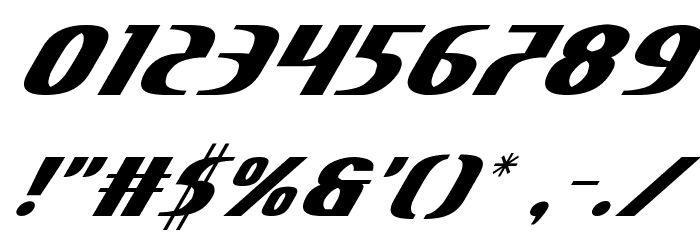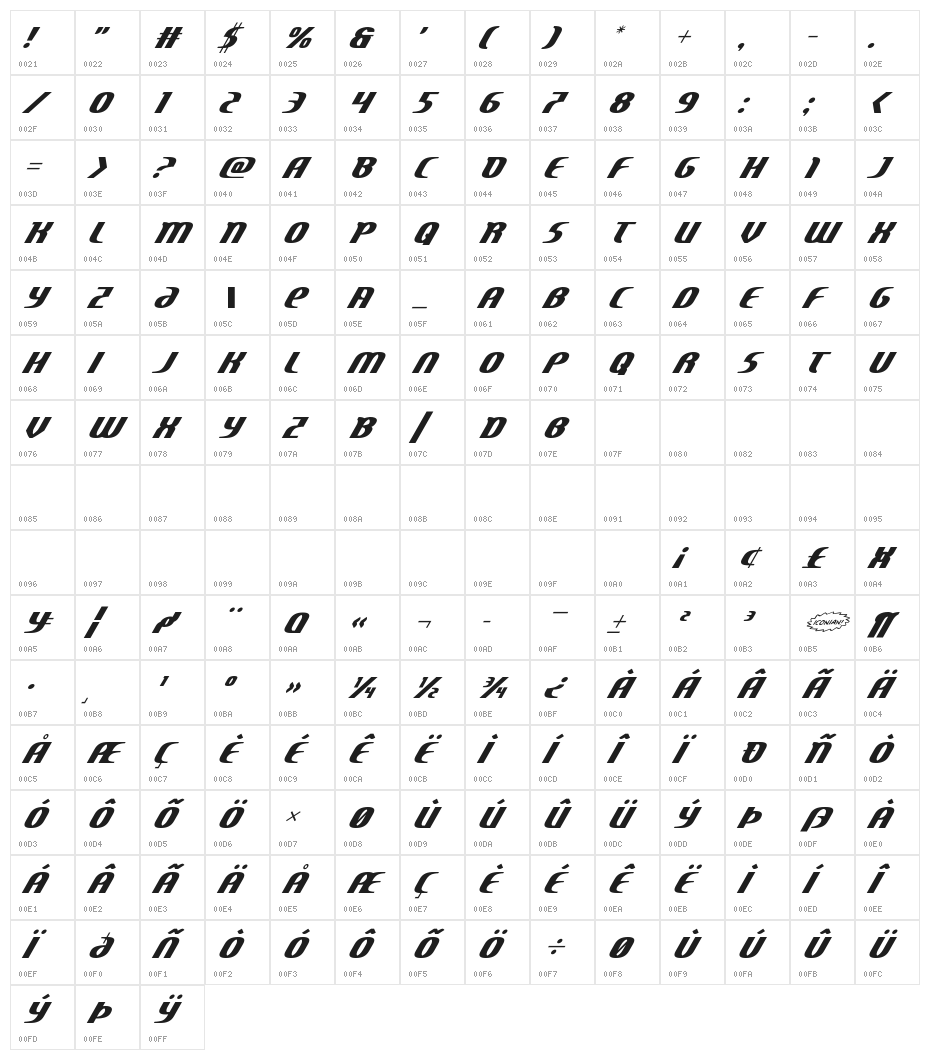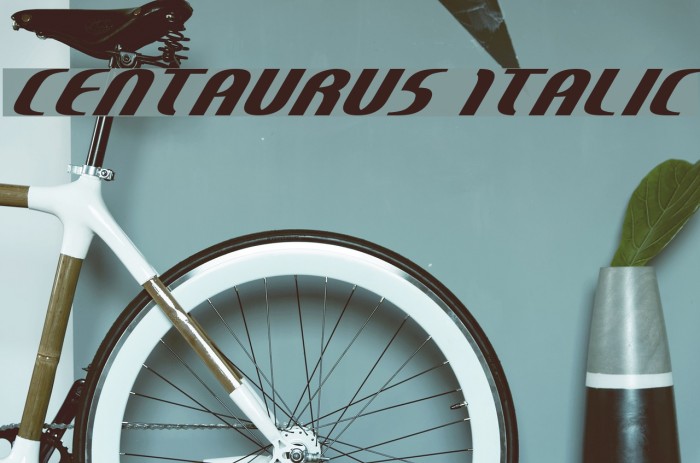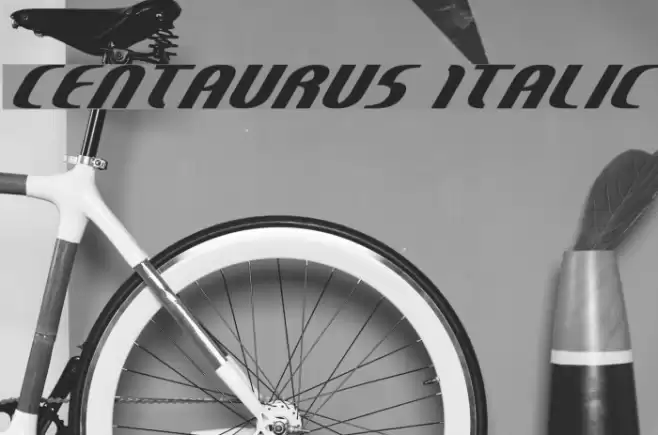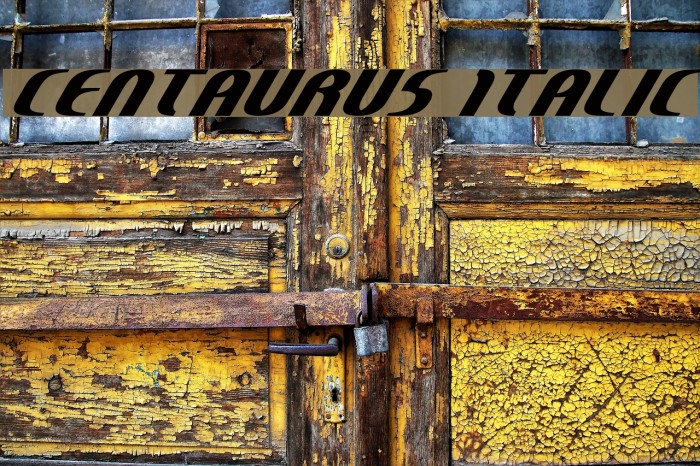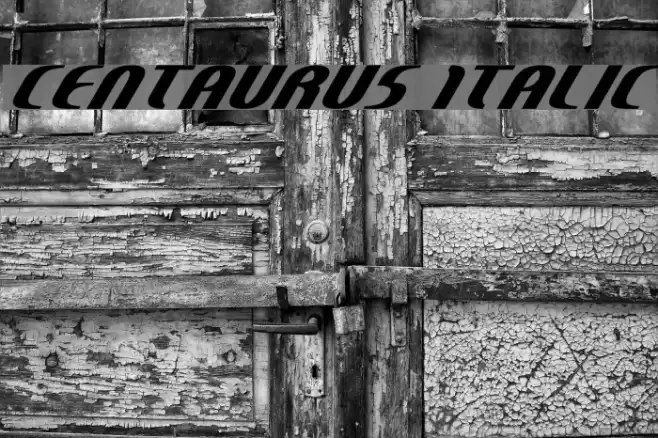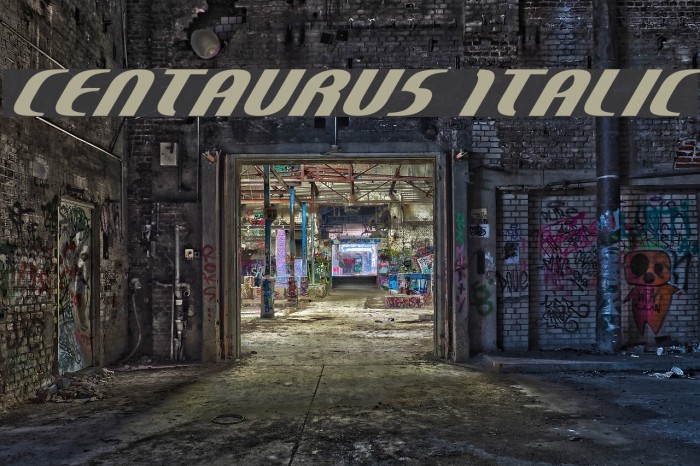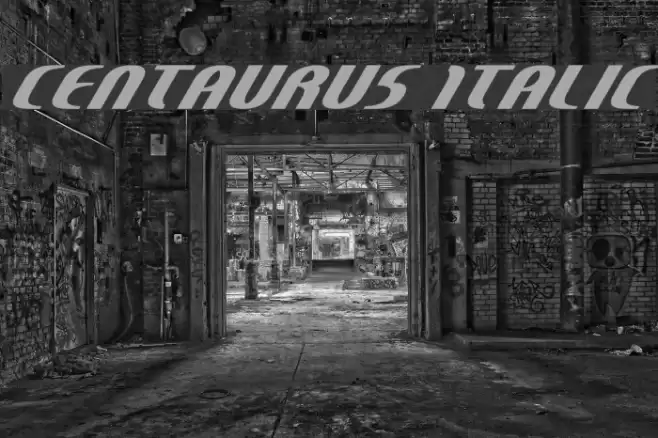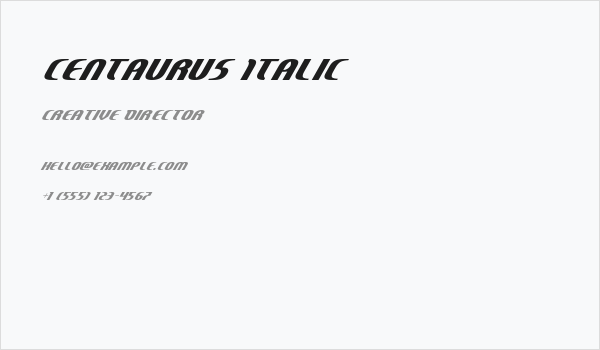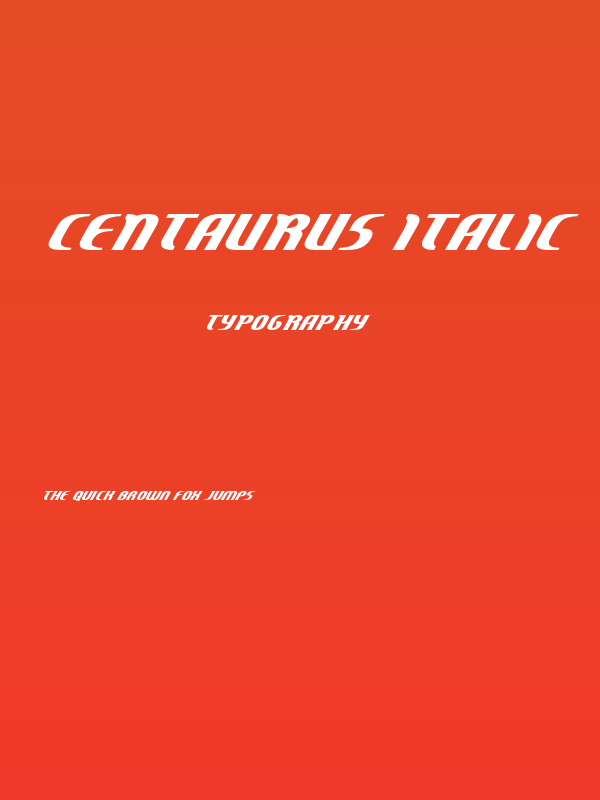
Centaurus Italic Font
Centaurus Italic Description
This font exhibits a bold and dynamic italic style, characterized by its strong, angular strokes and forward-leaning posture. The uppercase and lowercase letters maintain a consistent slant, giving the typeface a sense of motion and energy. The characters are well-defined with a moderate contrast between thick and thin strokes, enhancing readability while maintaining a stylish appearance. The numerals and special characters follow the same design principles, ensuring uniformity across all glyphs. This font's unique style makes it suitable for projects that require a bold and impactful visual presence.